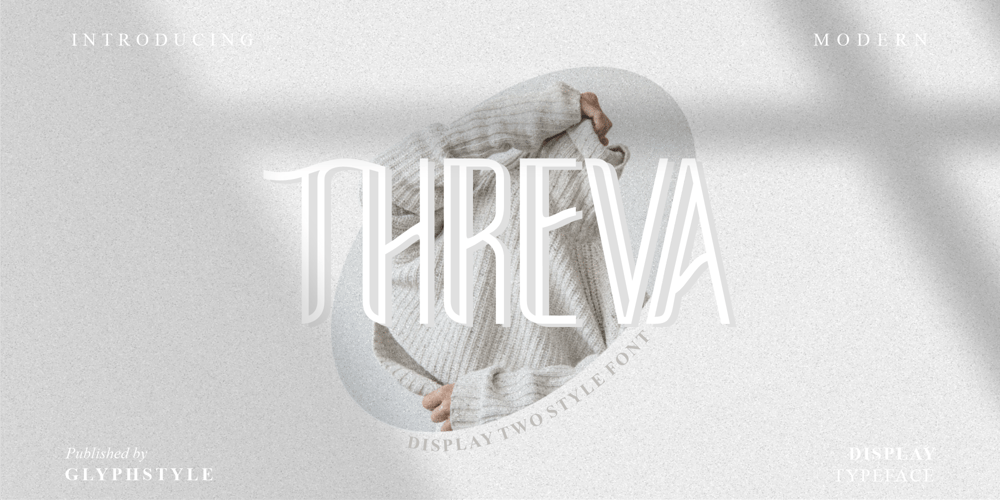
Threva Font Family was designed by Dimas Ardhi and published by GlyphStyle. Threva contains 2 styles and family package options. Threva is a stylish sans serif font with 2 styles, solid and outline. You can combine the two into something creative. The shape is not too stiff, looks modern and elegant